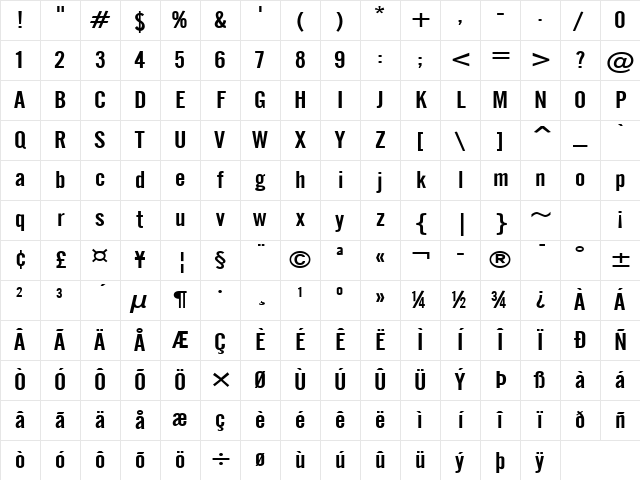
English Gothic-Extended Normal
Complete English Gothic-Extended Normal glyph index. Displaying only characters natively supported by English Gothic-Extended Normal font.
Design Context for English Gothic-Extended
English Gothic-Extended takes a clean, functional approach - its unadorned letterforms prioritise legibility and work reliably across screen and print environments.
Font Pairing: Works well alongside a characterful serif or display font that can carry the expressive load while English Gothic-Extended handles the functional copy.
Pro Tip: Use English Gothic-Extended for UI labels, navigation, and short-form body copy where clean legibility is the priority.